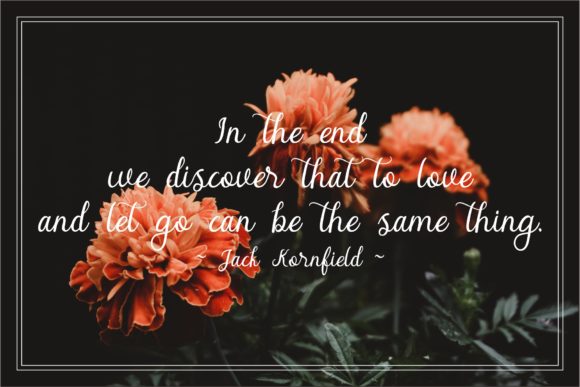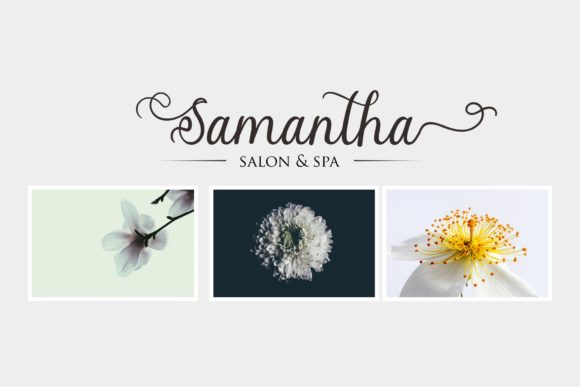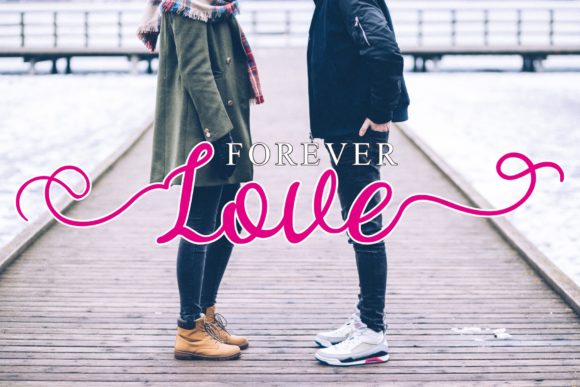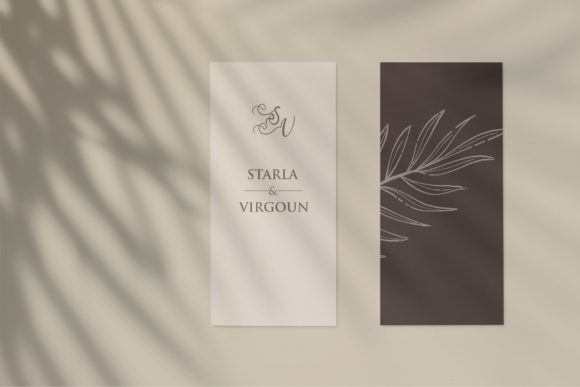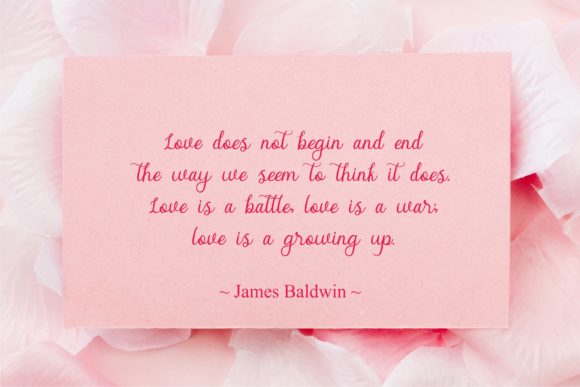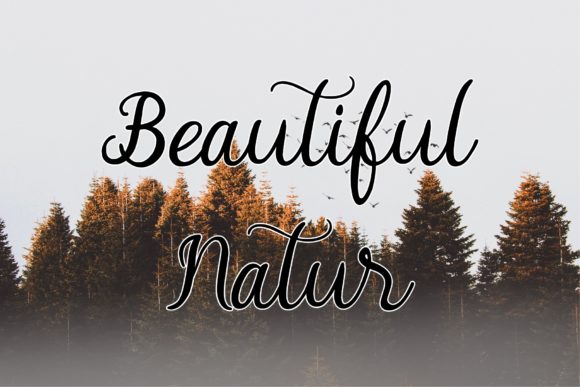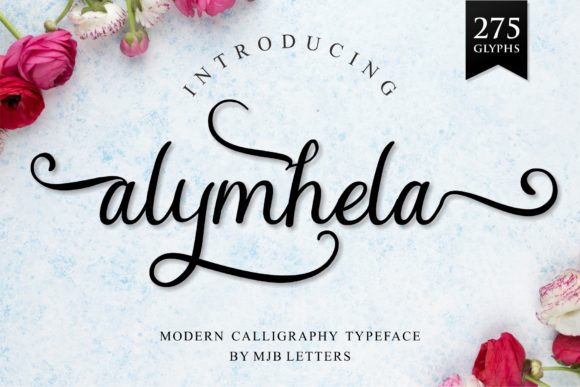
Alymhela Font: Elevate Your Designs with Elegance and Sophistication
In the world of typography, a font can make or break the aesthetic of a design. For those seeking a modern, beautiful, and elegant typeface, look no further than the Alymhela Font. This stunning font is perfect for designers and crafters who aim to create feminine, luxurious, and sophisticated designs that leave a lasting impression.
The Essence of Alymhela Font
The Alymhela Font is a modern typeface that exudes elegance and refinement. Its fresh and contemporary look makes it an ideal choice for a wide range of design projects, from invitations and greeting cards to branding materials, quotes, posters, and more. With its clean lines, subtle curves, and precise craftsmanship, this font is sure to elevate your designs to new heights.
Key Features of Alymhela Font
- Feminine and Elegant: The Alymhela Font boasts a distinctly feminine and elegant style, making it perfect for designs that require a touch of sophistication and refinement.
- Modern and Fresh: With its modern look and feel, this font is ideal for designers who want to create contemporary and stylish designs that appeal to a wide audience.
- Versatile: The Alymhela Font can be used for a variety of design projects, including invitations, greeting cards, branding materials, quotes, posters, and more.
- Highly Readable: The font’s clear and precise craftsmanship ensures that it remains highly readable, even at smaller sizes.
Design Applications for Alymhela Font
The Alymhela Font is an incredibly versatile typeface that can be used in a wide range of design applications. Here are some ideas to get you started:
- Invitations: Create beautiful and elegant invitations for weddings, baby showers, and other special occasions.
- Greeting Cards: Design stunning greeting cards for birthdays, holidays, and other celebrations.
- Branding Materials: Use the Alymhela Font to create luxurious and sophisticated branding materials, such as logos, business cards, and letterheads.
- Quotes and Posters: Create inspiring and visually striking quotes and posters that showcase your favorite sayings and phrases.
- Stationery: Design beautiful and elegant stationery sets, including notebooks, journals, and planners.
Tips for Using Alymhela Font
To get the most out of the Alymhela Font, here are some tips to keep in mind:
- Pair with Other Fonts: Experiment with pairing the Alymhela Font with other fonts to create visually striking and interesting combinations.
- Use for Headings and Titles: The Alymhela Font is perfect for headings and titles, where its elegant and sophisticated style can really shine.
In conclusion, the Alymhela Font is a stunning and versatile typeface that is perfect for designers and crafters seeking to create elegant, sophisticated, and modern designs. With its fresh and contemporary look, this font is sure to elevate your designs to new heights. Whether you’re working on invitations, greeting cards, branding materials, or more, the Alymhela Font is an excellent choice.